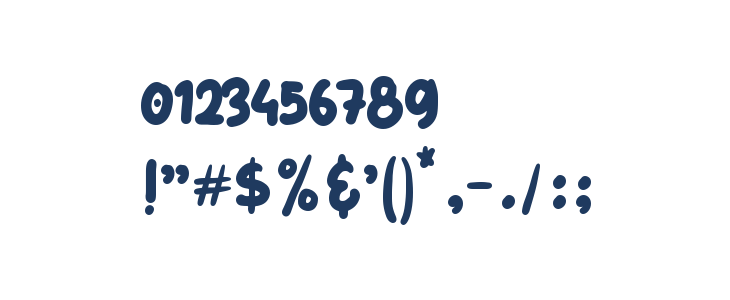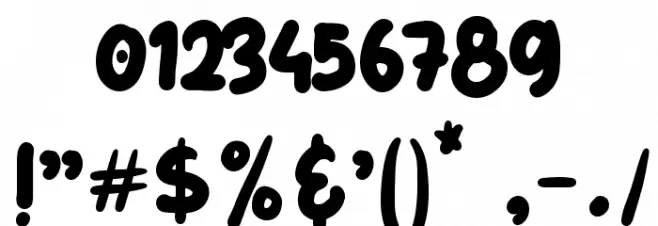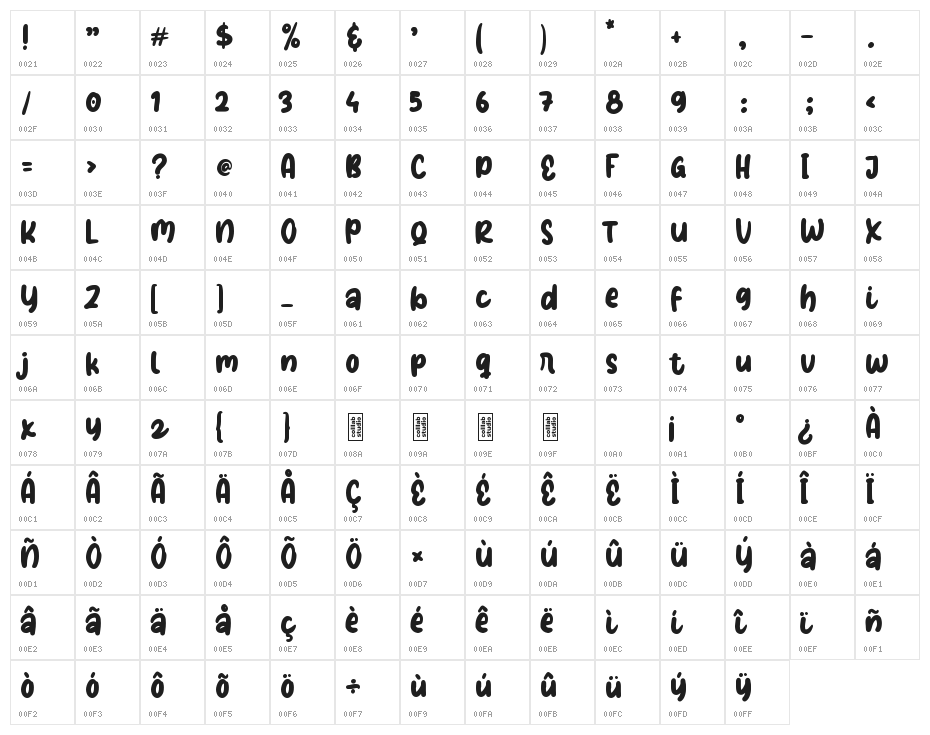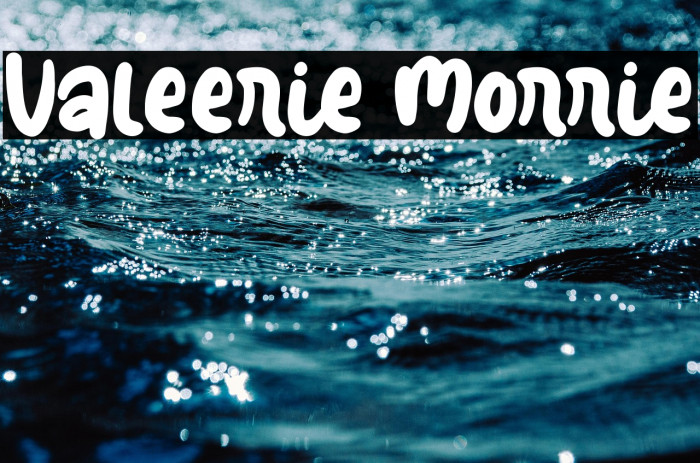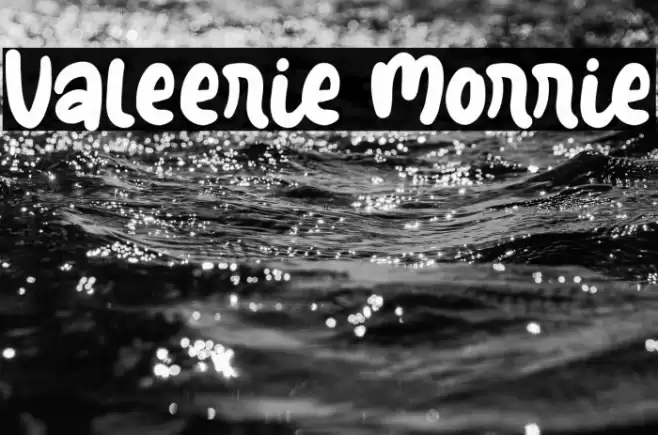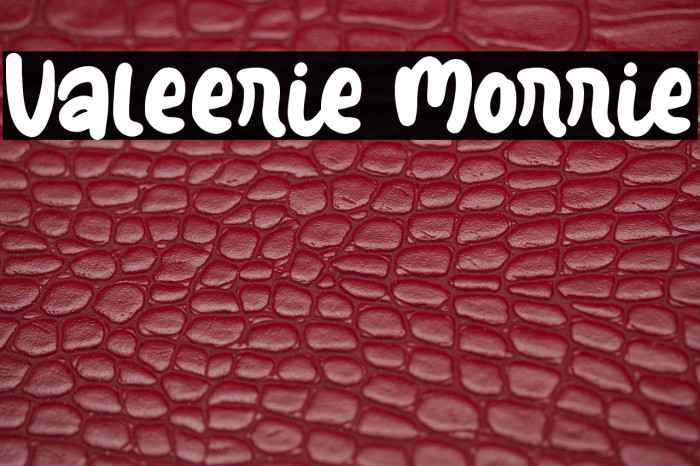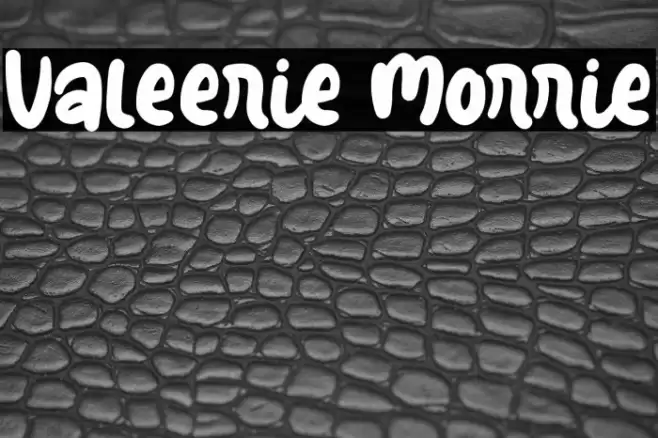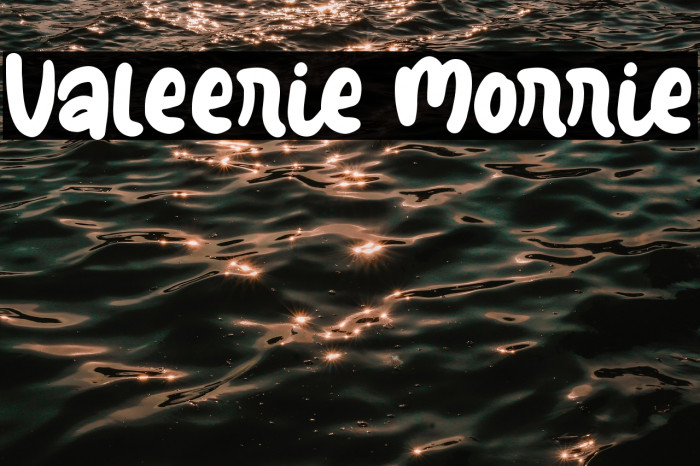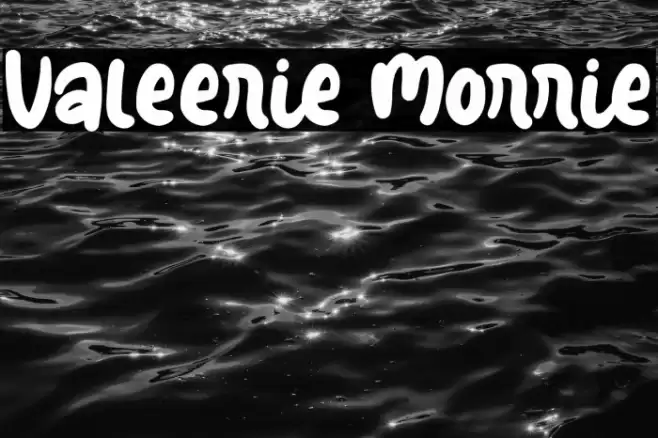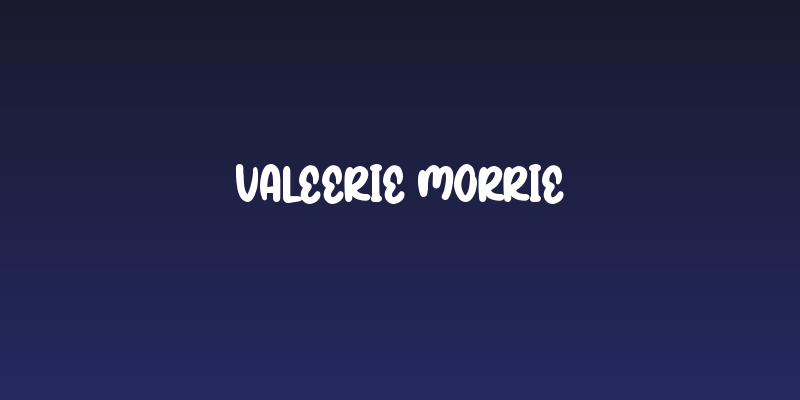
Valeerie Morrie Font
Valeerie Morrie Description
This playful and bold font features rounded, thick strokes that give it a friendly and approachable appearance. The letters are slightly irregular, adding a whimsical touch to the overall design. The uppercase and lowercase characters maintain a consistent style, with smooth curves and a hand-drawn feel. The numbers and special characters complement the alphabet with the same bold and rounded characteristics. This font is perfect for projects that require a fun and informal tone, such as children's books, playful branding, or creative posters.
| Proposed Projects | Ideal for children's books, playful branding, creative posters, and informal invitations. |